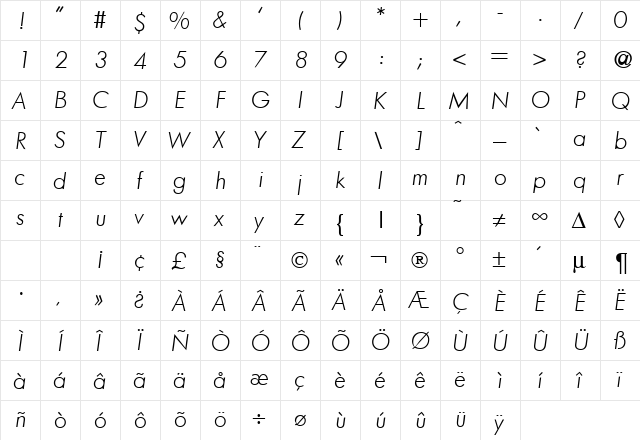
FunctionTwoLight RegularItalic Font Preview
Design Context for FunctionTwoLight Typeface
FunctionTwoLight has an approachable, lighthearted character — its loose, expressive forms are well-suited to children's content, casual branding, and fun-first design. The dynamic lean of this cut emphasises speed and emphasis in any layout.
Font Pairing: Pairs well with a rounded or humanist sans for body copy, maintaining the friendly tone without relying on FunctionTwoLight to carry extended reading.
Pro Tip: Use FunctionTwoLight at larger display sizes where its expressive character can land. Pair with a clean, simple sans for body copy to maintain readability.